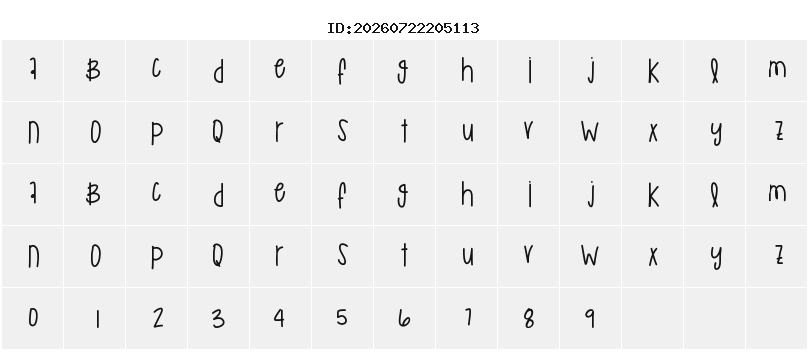
• Font Name: MurakamiRilapika
• Font ID: Des:MurakamiRilapika
• Full Font Name: MurakamiRilapika
• PostScript Name: MurakamiRilapika
About MurakamiRilapika.ttf
MurakamiRilapika.ttf is a modern, elegant sans-serif font designed for ultimate readability and visual harmony. Perfect for branding, headlines, web design, and print materials.